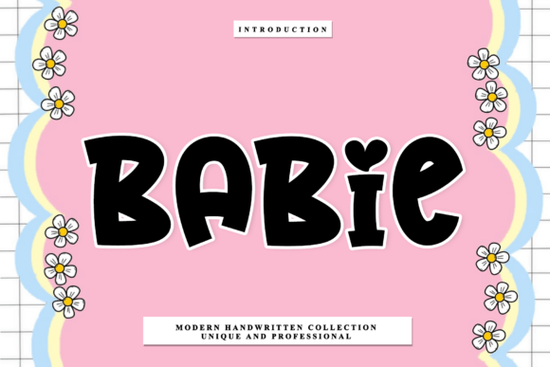
Babie Font is a unique script typeface that brings a sense of elegance and warmth to any design project. Whether you're working on food branding, packaging, or editorial layouts, this font offers a refined balance between calligraphic flair and organic charm. Its flowing ascenders add a custom feel, making it ideal for creating visually appealing content that stands out.
For designers and small business owners looking for a versatile script font, Babie Font provides a professional yet approachable aesthetic. It works well in both digital and print formats, offering flexibility across different creative applications. If you're exploring similar fonts, you might also enjoy No Naps Required Party Font, Swearly Font, or Sweet Hearts Font.
When choosing a font for artisanal or lifestyle branding, the right typeface can make a big difference. Babie Font is particularly suited for boutique products, upscale marketing materials, and creative editorial projects. Its rhythmic structure gives each letter a natural flow, enhancing readability while maintaining a handcrafted look. This makes it a great choice for those who want to convey authenticity and attention to detail.
One of the key strengths of Babie Font is its adaptability. It can be used in a variety of contexts without losing its character. For example, it works well for logos, headings, and even body text when paired with complementary fonts. If you're looking for more options in the script font category, you might also consider Laila Dream Font or explore other designs on Babie Font at Creative Fabrica.
Designers and crafters often seek fonts that offer both style and functionality. Babie Font meets these needs by combining artistic elements with practical usability. Its clean lines and dynamic movement make it suitable for a wide range of projects, from wedding invitations to product labels. Whether you're a print-on-demand seller or a creative hobbyist, this font can help elevate your work without overwhelming the viewer.
If you're interested in experimenting with different script fonts, consider testing Babie Font alongside others like Babie Font, No Naps Required Party Font, or Swearly Font. Each has its own unique qualities, and finding the right one depends on your specific design goals.
When using Babie Font, it's important to maintain a balance between creativity and clarity. While the font's looping ascenders add visual interest, they should not interfere with legibility. Pairing it with a simple sans-serif or serif font can help create a harmonious layout. Additionally, using it in moderation such as for headlines or decorative elements can ensure it remains effective and easy to read.
For those new to typography, understanding how different fonts interact is essential. Babie Font is a great starting point for learning about script styles and their applications. It’s also useful to explore other fonts in the same category to see how they compare. This can help you make informed decisions about which typefaces best suit your creative vision.
Whether you're designing for a client or working on a personal project, Babie Font offers a stylish and functional solution. Its combination of elegance and warmth makes it a valuable addition to any designer's toolkit. By using it thoughtfully, you can create designs that are both visually appealing and easy to read.